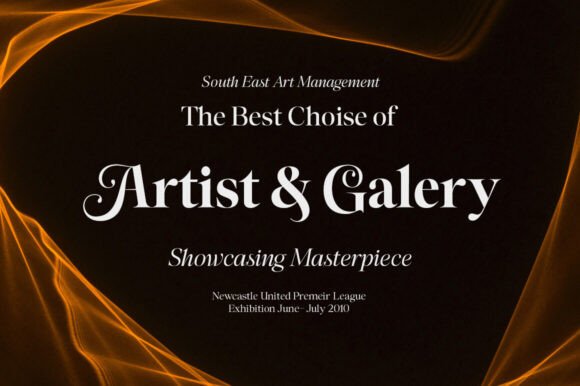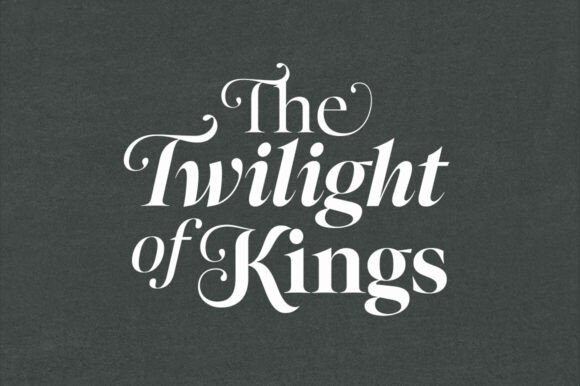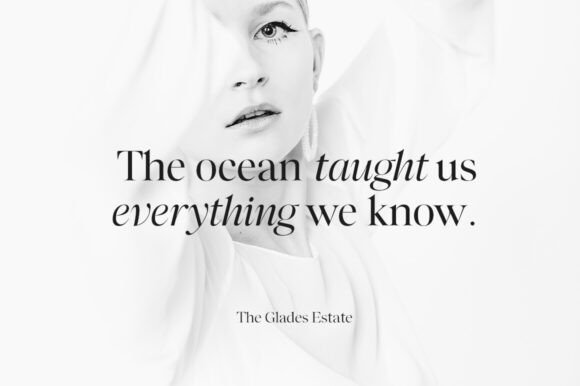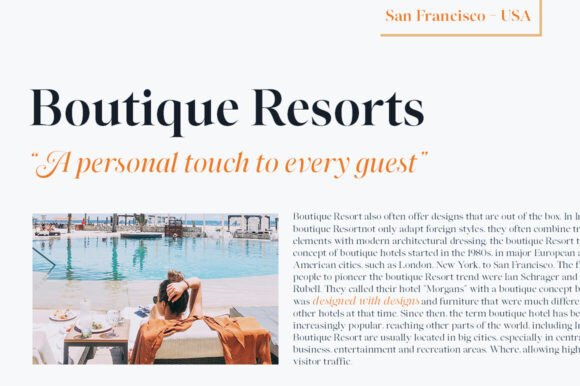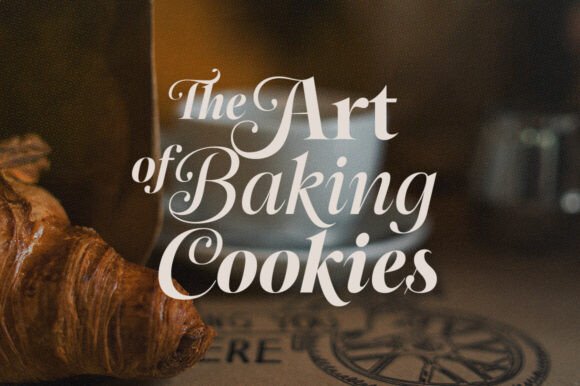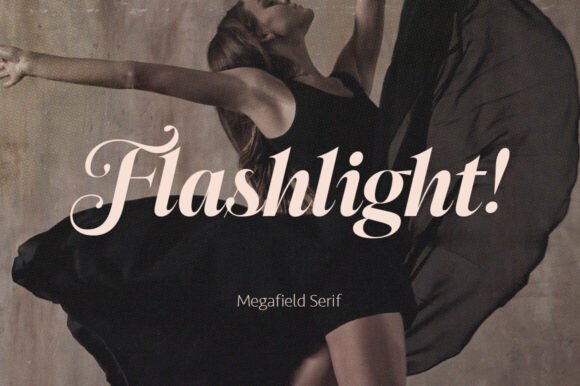
Introduction to Megafield Font
As designers, we’ve all been there – staring at a blank canvas, trying to conjure up the perfect font to bring our creative vision to life. For me, it’s the moment when everything clicks, and the words start flowing effortlessly. It’s a feeling that’s hard to replicate, but one thing’s for sure – having the right font can make all the difference. Enter Megafield Font, a game-changing display serif typeface that’s about to revolutionize your design process.
With its sharp, dynamic strokes and delicate pointed serifs, Megafield Font gives traditional serif design elements a modern twist, making it the perfect addition to any high-quality design resource. Whether you’re working on a free download or a paid project, this versatile font family has got you covered. Ranging from Light to Extra Bold, with 6 weights and 6 Italics, Megafield Font is a design resource that’s hard to ignore.
- High-quality, bold font design suitable for various creative projects
- Unique characteristic: Distinctive, futuristic design elements that add a touch of modernity to any creative project
Honest Review: Megafield Font
I recently came across the Megafield Font, and I must say it’s a solid addition to any designer’s arsenal. As a design resource, it’s a high-quality font that can elevate any creative project. The font is versatile and works well in a variety of contexts, from corporate materials to more playful projects.
- ✨ Unique Design: The Megafield Font has a distinctive, modern design that sets it apart from more traditional fonts.
- ✨ Transparent Background: The font’s transparent background makes it easy to customize and pair with other design elements.
While the Megafield Font is a great addition to any design library, there are a few limitations to be aware of:
- ⚠️ Limited Font Styles: The font only comes in a few styles, which may limit its versatility in certain projects.
- ⚠️ Not Ideal for Small Text: The font’s bold design may not be suitable for small text, where readability is a concern.
Overall, the Megafield Font is a solid choice for designers looking for a high-quality, versatile font for their creative projects. While it has some limitations, its unique design and transparent background make it a valuable resource for any design library.
Megafield Font: A High-Quality Design Resource
Tips for Getting the Most Out of Megafield Font
To maximize the potential of Megafield Font, use it on a transparent background to create a clean and modern look. You can also combine it with other design elements to add depth and interest to your project.
Megafield Font is ideal for creative projects such as posters, flyers, and social media graphics. It’s also a great choice for branding and marketing materials, as its high-quality design can help establish a professional image.